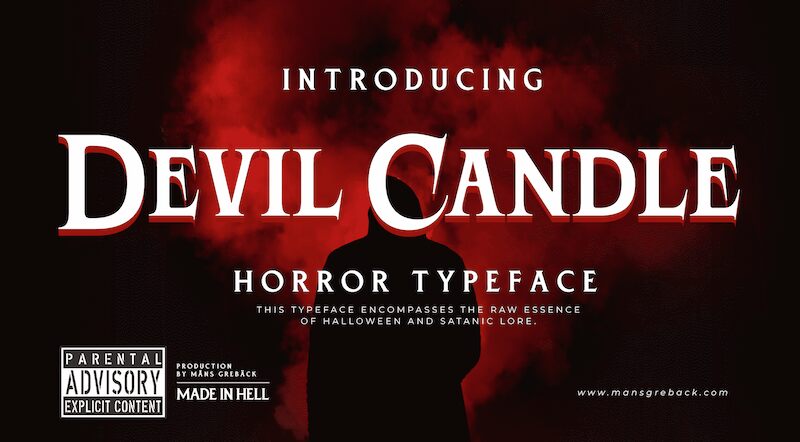
Devil Candle, designed by Mans Greback, is a hauntingly exquisite font that embodies the essence of Halloween. With its semi-bold weight and refined serif characters, this typeface captures the flickering flames of a devil's candle, casting an eerie glow on your projects.
Perfect for horror movies and bone-chilling narratives, Devil Candle will send shivers down your audience's spines as it immerses them in the depths of satanic lore. Its advanced OpenType functionality offers endless customization options, with stylistic and contextual alternates, ligatures, and more. This versatile font is suitable for a wide range of projects that require a touch of terror - from spooky book covers to bewitching party invitations.
With extensive lingual support and all-encompassing character sets, Devil Candle ensures seamless integration into any Latin-based language project worldwide.